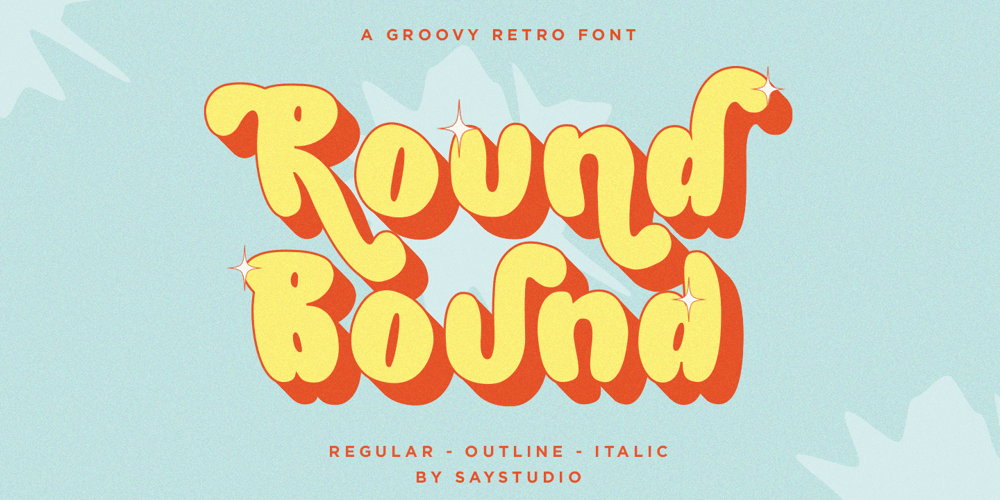
Round Bound Groovy
Round Bound Groovy font
Round Bound Groovy Font Family was designed by Mussyayin and published by Say Studio. Round Bound Groovy contains 4 styles and family package options. Say Hello to Round Bound is a retro groovy display font. Use this display font to add that special rounded retro touch to any design idea you can think of. Masterfully designed to become a true favorite. This font has 4 styles that can be adjusted to your wishes.Very suitable for logotype, Stickers, Packaging design, Cricut Project, headlines, brand identity, t shirt or apparel industry, posters,magazines, books, YouTube, Instagram, websites, quotes, invitations, greeting cards and so much more.Round Bound Features:- 4 Style Font : Regular, Outline, Italic, Italic Outline- Alternates Uppercase and Lowercase- Unique Ligatures- Punctuation & Symbols- Multilingual SupportThanks, Have a wonderful DaySay Studio